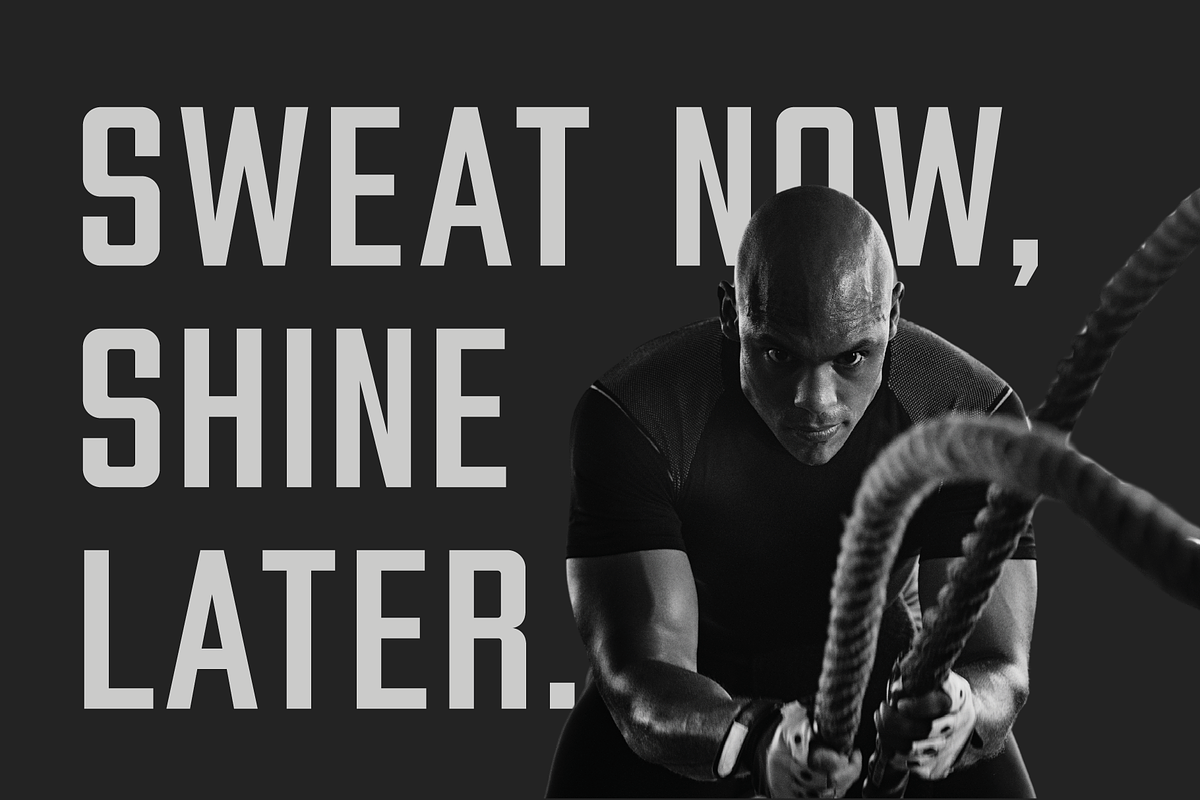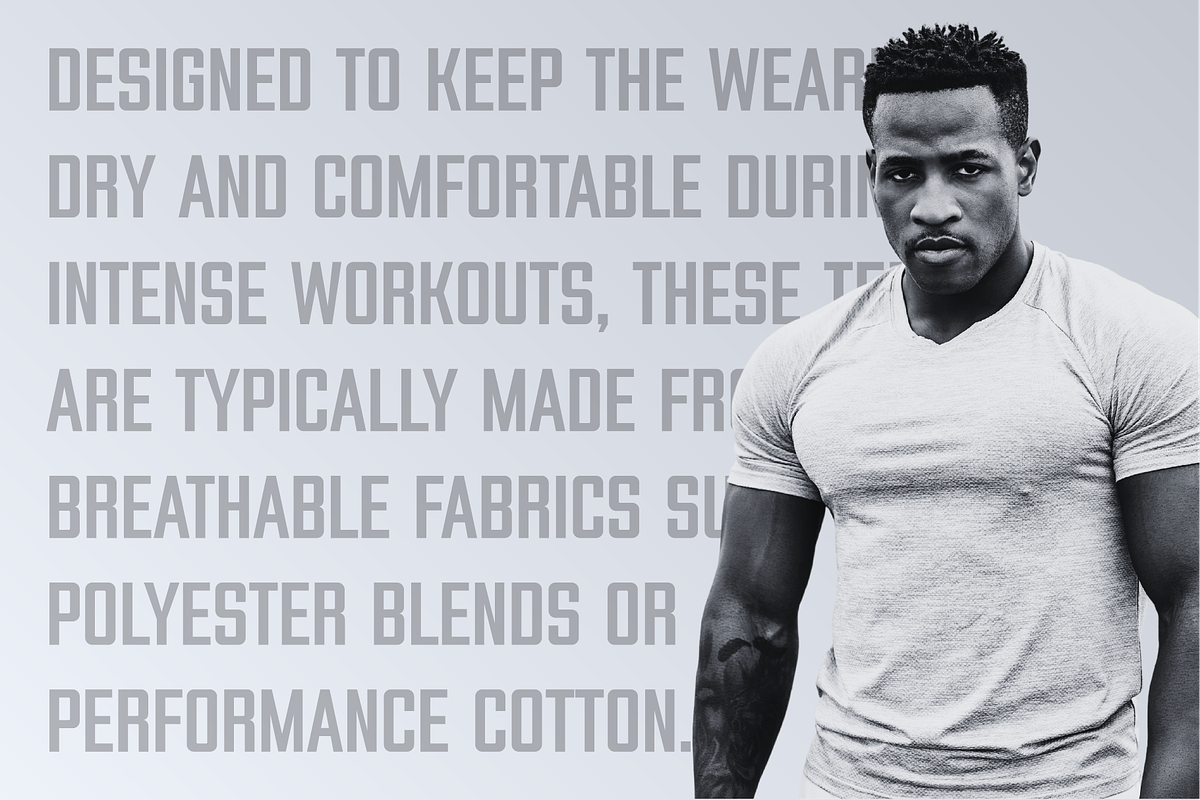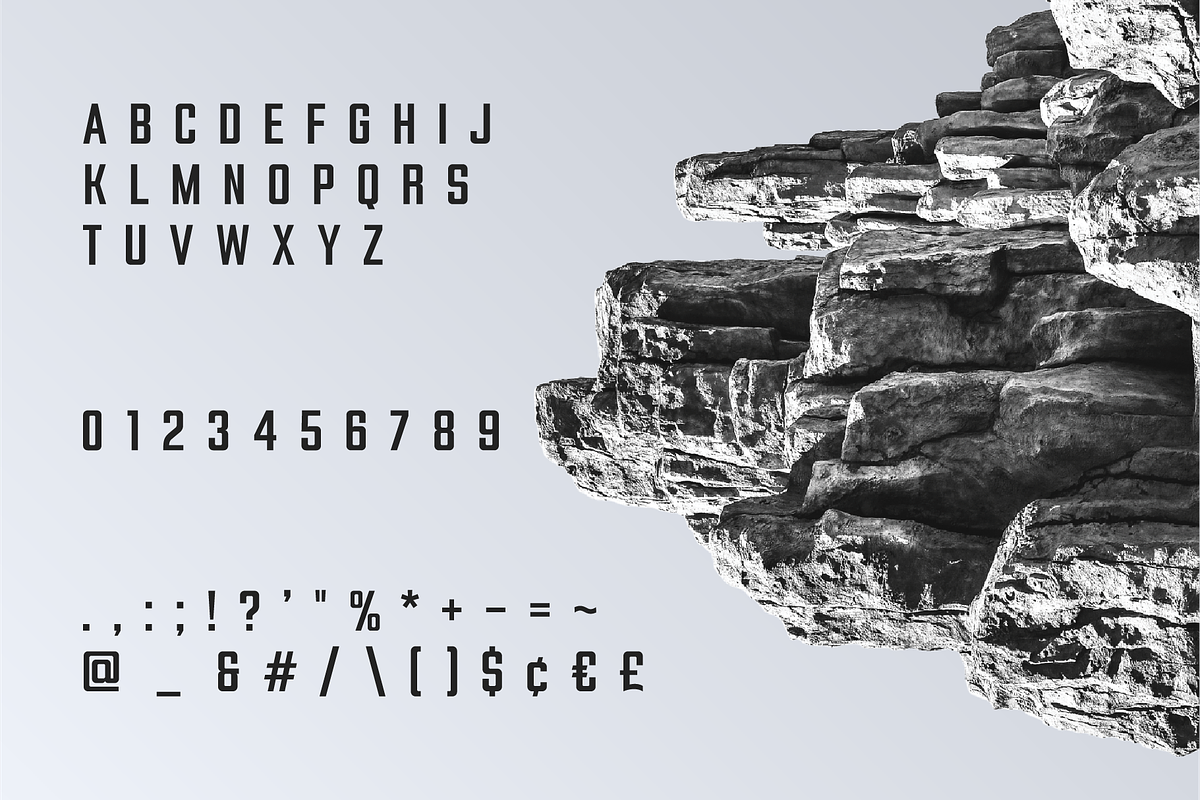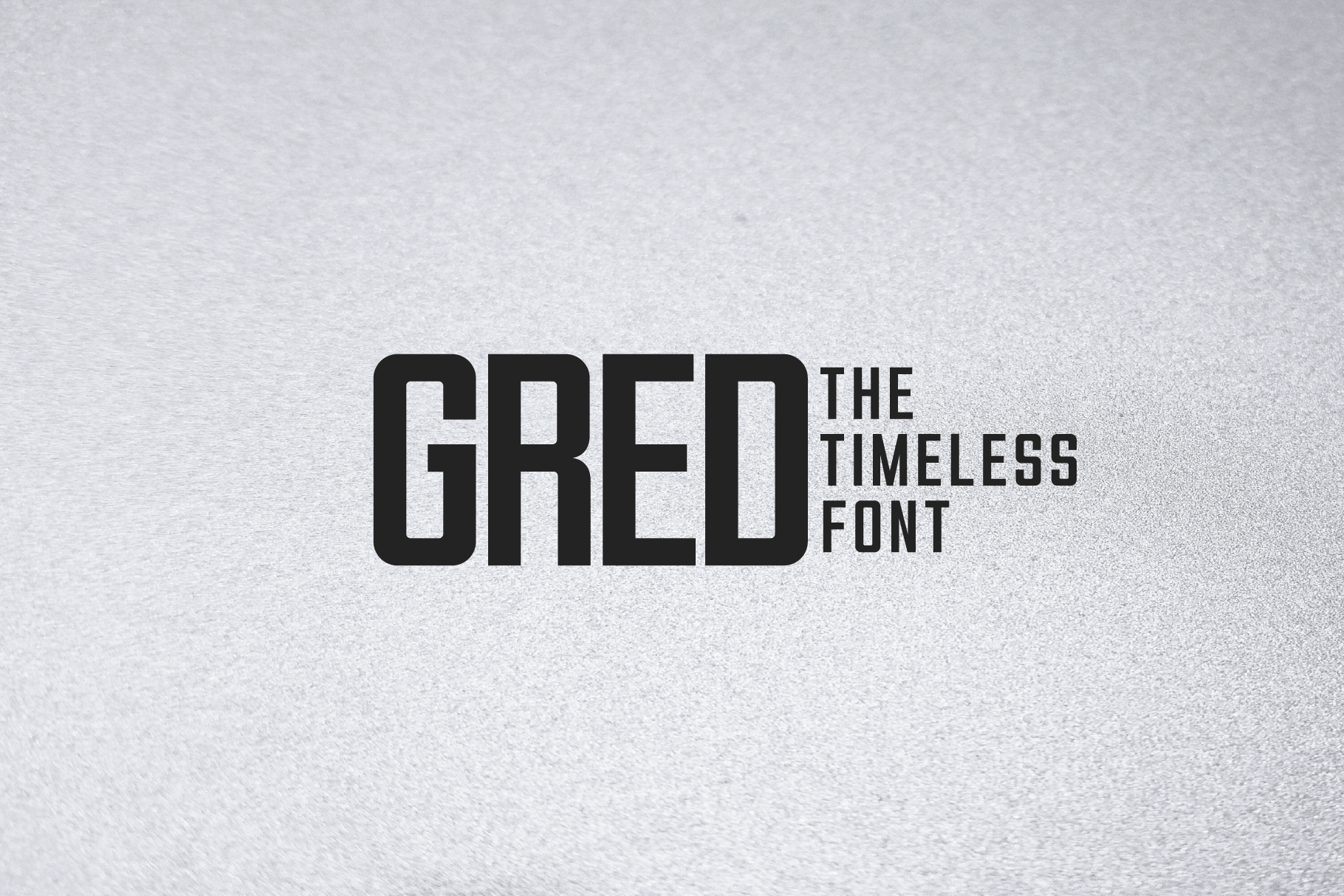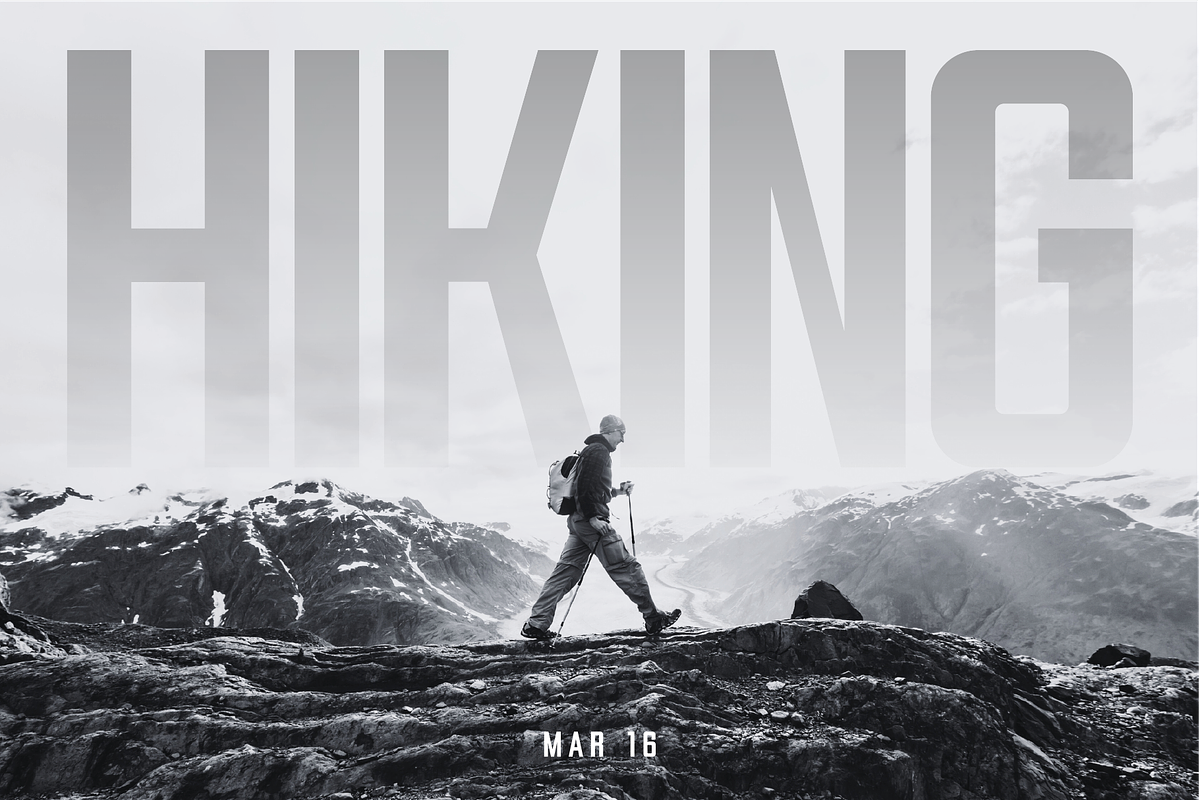
Gred Bold Condensed Font
Introducing Gred, a geometric condensed font with bold attributes and a modern, masculine touch. It's a perfect choice for headings and titles and can be used for a variety of purposes including posters, logo designs, t-shirt designs, and social media posts. Give your designs a bold and striking look with this bold condensed font.